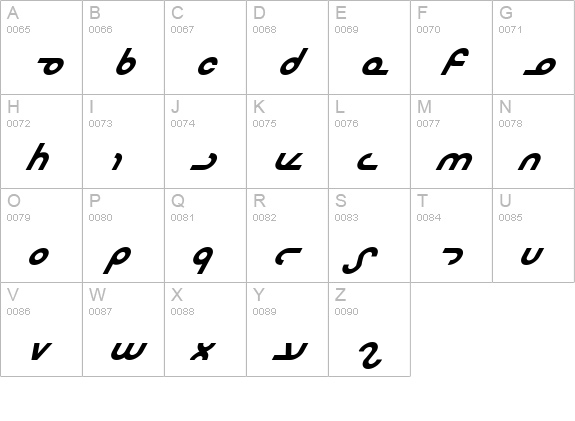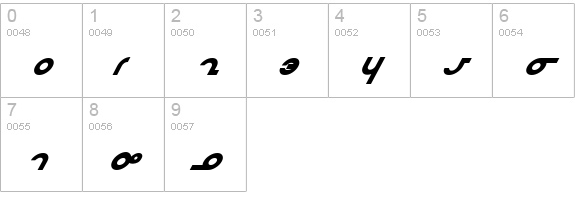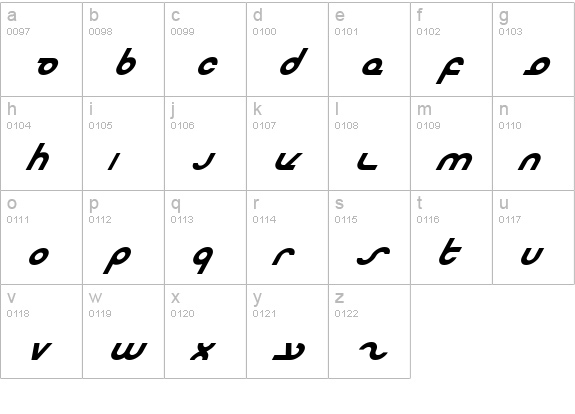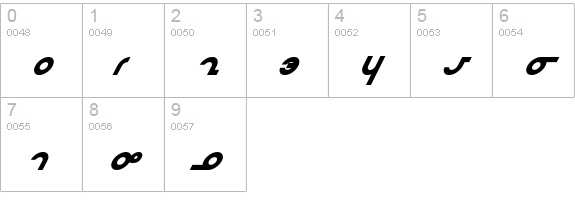
Masterdom Bold Italic is a strong, high-contrast, italic variant in the Masterdom typeface family \xE2\x80\x94 well suited to headlines, attention-grabbing titles, and strong calls-to-action.
Masterdom Bold Italic is a stunning and elegant font that exudes sophistication and style. Its bold and italic characteristics make it perfect for creating eye-catching designs that demand attention. The strong lines and curves of this font add a touch of modernity and class to any project. What sets Masterdom Bold Italic apart is that it is not only visually appealing but also incredibly versatile. Whether you're working on a logo, branding materials, invitations, or any other creative project, this font will elevate your design to new heights. And the best part? Masterdom Bold Italic is available for free download at FontsMarket.com. So, you can easily access this beautiful font and use it in your projects without any cost. Don't miss out on the opportunity to enhance your designs with the timeless elegance of Masterdom Bold Italic.